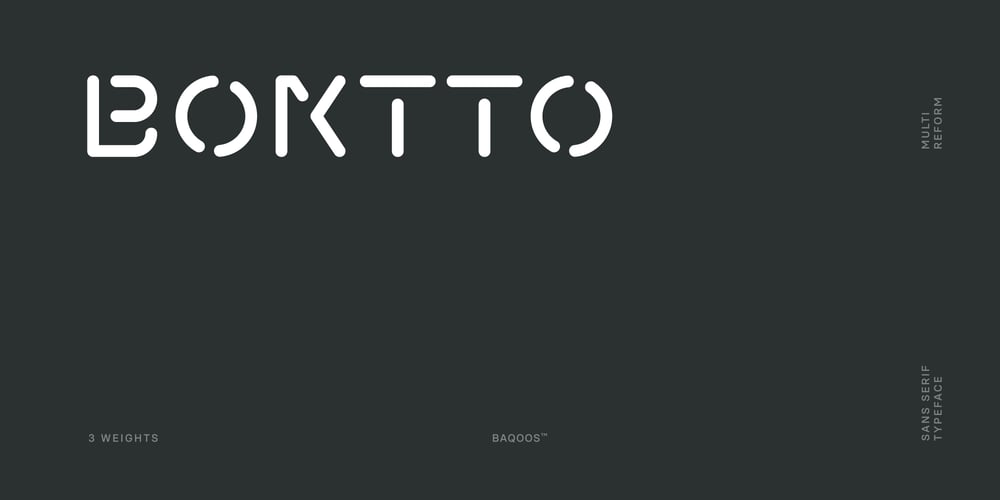
Boktto
Boktto font
Boktto Font Family was designed by Andrew Seah and published by Baqoos. Boktto contains 3 styles and family package options. Boktto is a multi reformatted linear sans apt for headline, editorial, branding, packaging, printed materials and typographic applications. 240+ glyphs with ligatures and fractions available in opentype .otf format